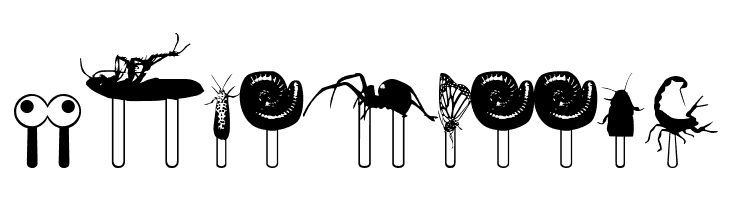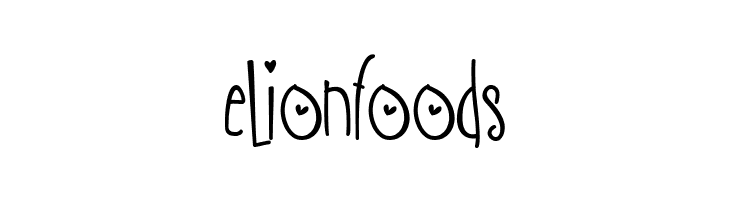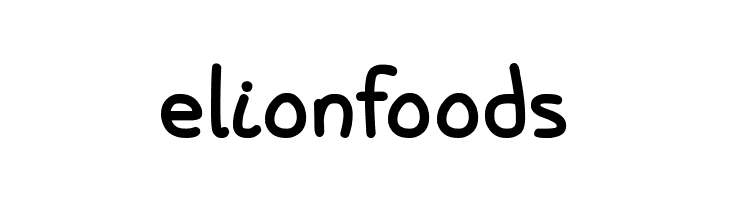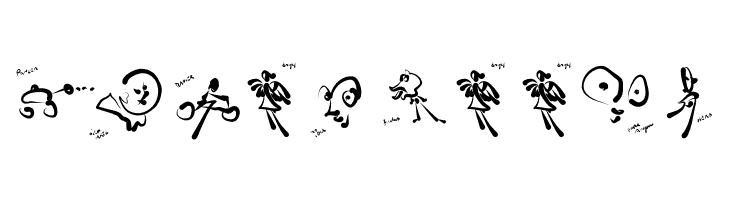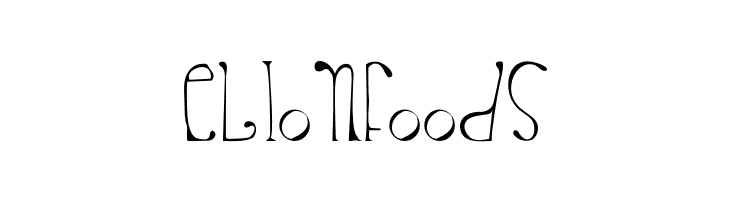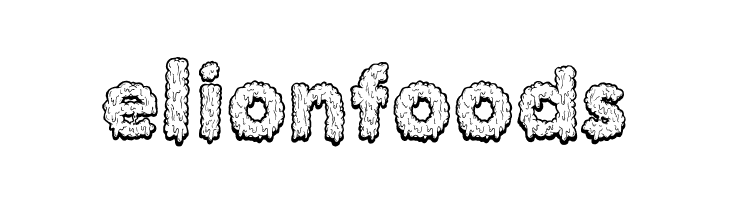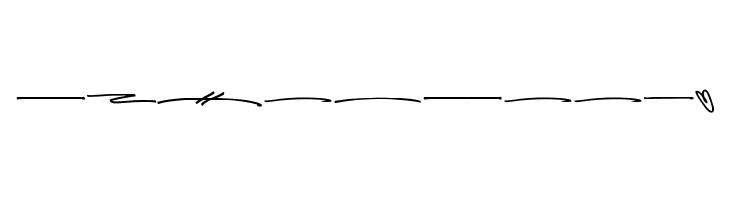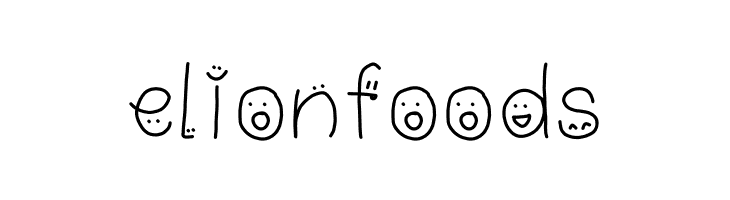
A whimsical and playful font with unique, decorative characters.
A decorative dingbat font with jungle-themed silhouettes on popsicle sticks.
A whimsical, hand-drawn font with playful embellishments and a casual style.
A playful, hand-drawn font with rounded edges and a whimsical style.
A whimsical, cartoon-like font with bold, abstract characters.
A whimsical font with celestial motifs and playful, decorative elements.
A whimsical and decorative font with playful flourishes and light strokes.
A bold, textured font with a playful, monstrous design.
A whimsical and decorative style with playful swashes and flourishes.
A playful, hand-drawn font with characters featuring whimsical faces.